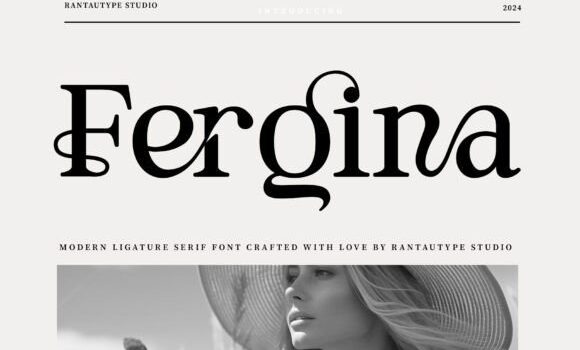
Fergina Font – Free Download Introduction to Fergina Font Fergina is a stylish serif font that blends classic elegance with modern sophistication. 📸 Preview Gallery 6 images 📌 Product Name Fergina Font 👤 Author RantauType 📂 Category Explore ⬇️ Download